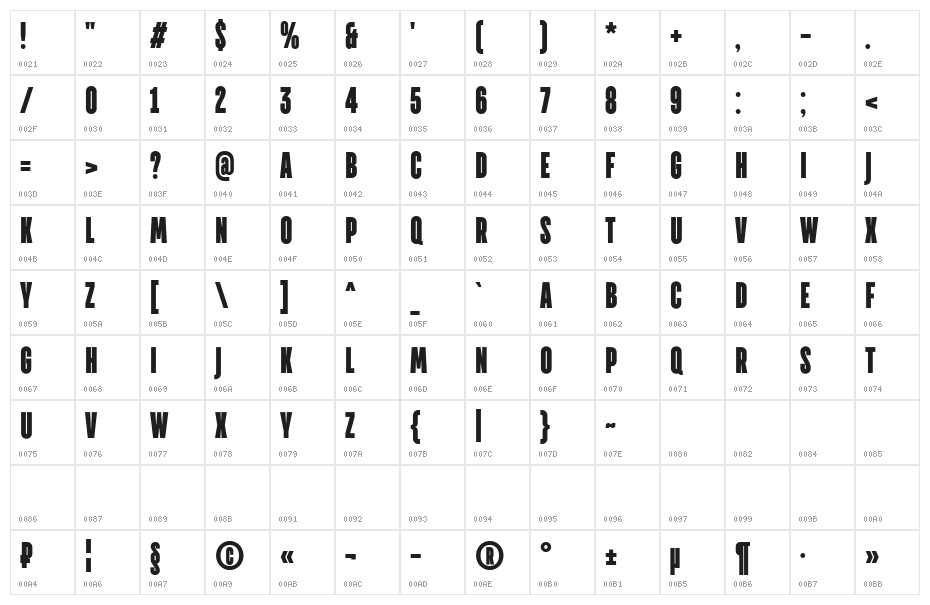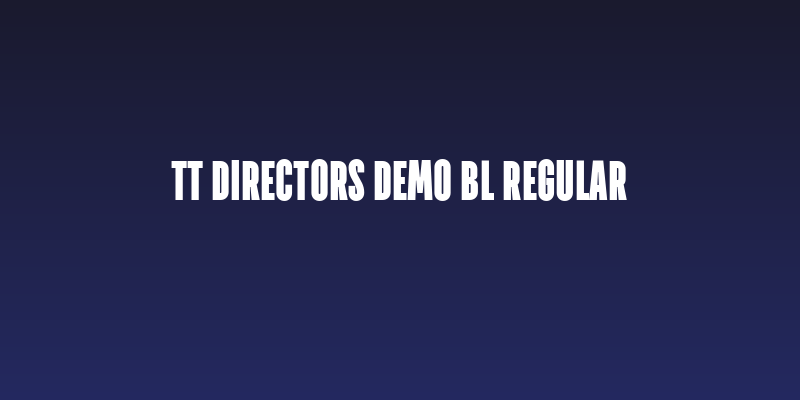
TT Directors DEMO BL Regular Font
TT Directors DEMO BL Regular Description
This font exhibits a bold and commanding presence with its thick, blocky letterforms. The uppercase letters are particularly striking, featuring a strong geometric structure that conveys a sense of authority and impact. The numbers and special characters maintain this robust style, ensuring consistency across all glyphs. The font's design is straightforward yet powerful, making it ideal for attention-grabbing headlines or titles. Its high contrast in stroke thickness further enhances its bold appearance, while the character spacing is tight, contributing to its compact and impactful look.
| Proposed Projects | Ideal for posters, headlines, branding, and any project requiring a strong visual impact. |